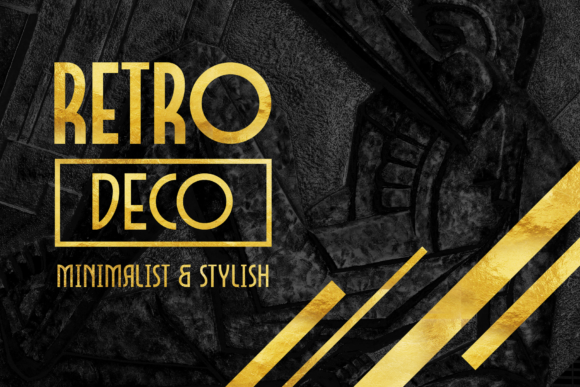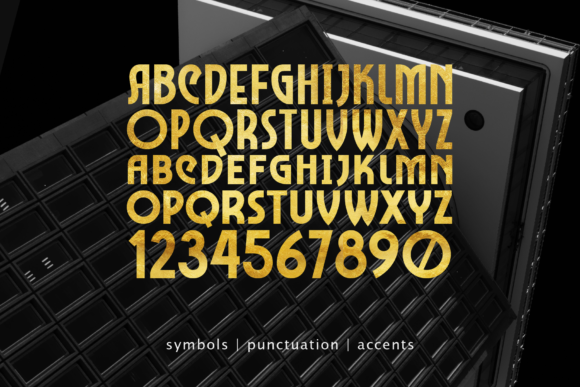
Introduction to Marcheile Font
The Marcheile is a striking display font, inspired from Gatsby & Vintage looks.
It’s clean and solid and has luxurious shapes which can be applied to any design .
Why Choose Marcheile Font?